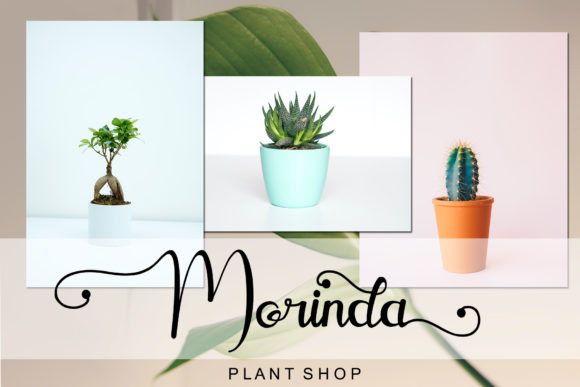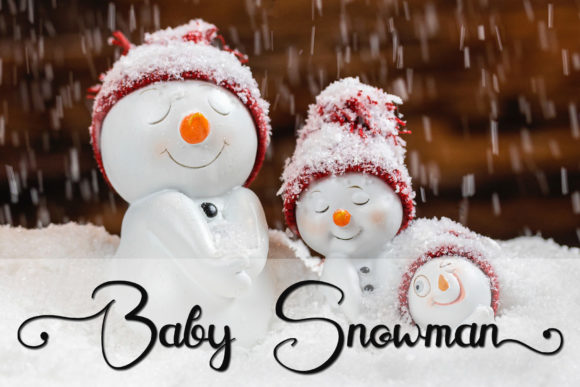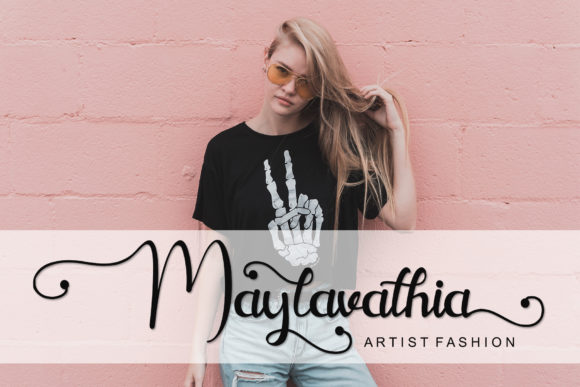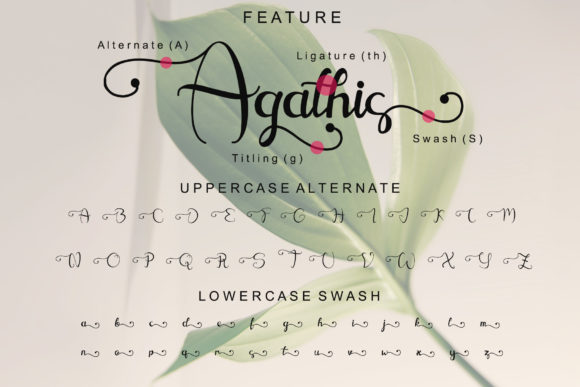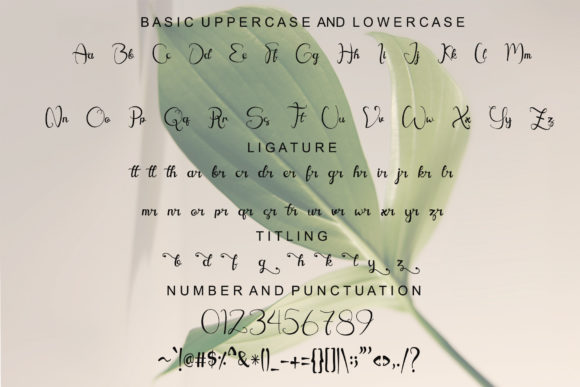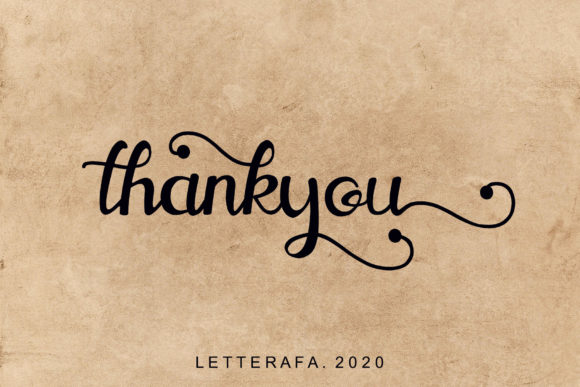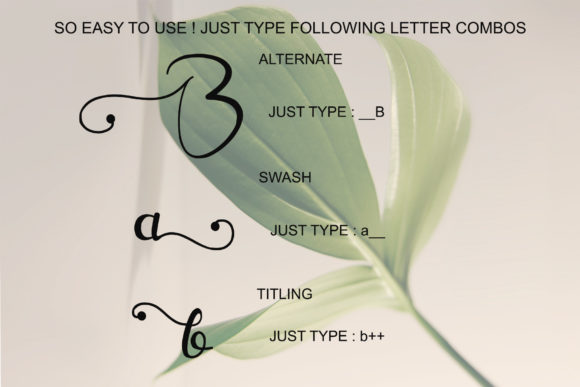
Agathis Font
About Agathis Font
Agathis is a charming and delicate calligraphy typeface that adds a touch of elegance to your designs. With its beautifully flowing characters and graceful baseline, Agathis is perfect for a wide range of applications, from logos and wedding invitations to headings, t-shirts, letterheads, and more.
The distinctive feature of Agathis lies in its dancing baseline, which adds a playful and dynamic element to your text. This unique characteristic sets Agathis apart, making it a standout choice for projects that require a touch of sophistication and charm.
Whether you’re designing a logo for a romantic brand, creating stunning wedding stationery, or adding an artistic touch to your social media graphics, Agathis offers versatility and style. Its graceful curves and intricate details make each letter a work of art, evoking a sense of beauty and refinement.
Agathis is thoughtfully designed to provide ease of use and accessibility. With its PUA encoding, you have access to a wide range of glyphs and swashes, allowing you to customize and enhance your designs effortlessly. This versatility gives you the freedom to experiment and create unique combinations that truly reflect your creative vision.
The elegant and delicate nature of Agathis makes it an ideal choice for projects that require a sense of femininity and sophistication. Its intricate letterforms and flowing strokes exude a sense of grace and beauty, making it particularly well-suited for wedding invitations, event branding, and other romantic or elegant design projects.
Agathis also supports multiple languages, ensuring that you can incorporate it seamlessly into your projects regardless of the target audience. Its versatility extends beyond just the Latin alphabet, allowing you to reach a wider range of viewers and readers.
In summary, Agathis is a sweet and delicate calligraphy typeface that brings elegance and charm to your designs. With its dancing baseline, wide range of glyphs and swashes, and support for multiple languages, Agathis offers endless creative possibilities. Whether you’re designing for weddings, branding, or other projects, let Agathis add a touch of sophistication and beauty to your work.